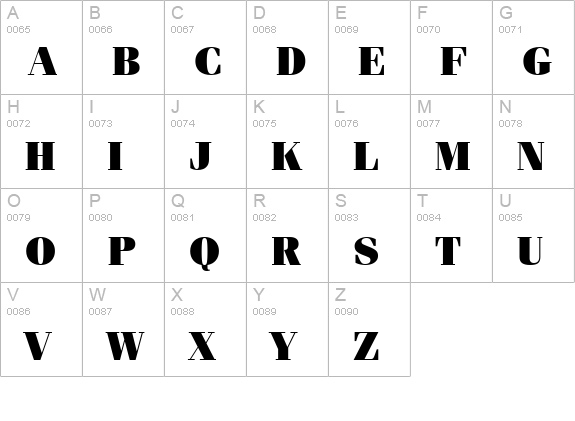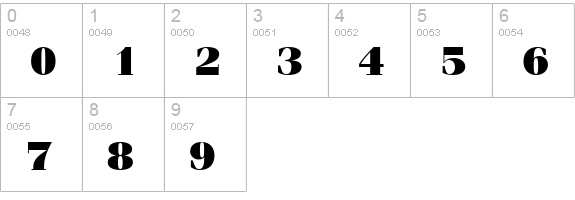
Compendium Black SSi Black is a maximum-weight, dramatic variant in the Compendium typeface family \xE2\x80\x94 well suited to maximum-impact headlines, posters, and packaging.
Compendium Black SSi Black font is a sleek and modern typeface that exudes sophistication and elegance. With its bold and striking design, this font is perfect for creating eye-catching headlines, titles, and branding materials. The clean lines and distinct letterforms of Compendium Black SSi Black make it a versatile choice for a variety of design projects. The best part is that Compendium Black SSi Black font is available for free download at FontsMarket.com. This means you can easily access this stylish font and use it in your projects without any cost. Whether you are working on a professional design project or a personal creative endeavor, Compendium Black SSi Black font will add a touch of class and sophistication to your work. Download it now and elevate your designs with this stunning typeface.